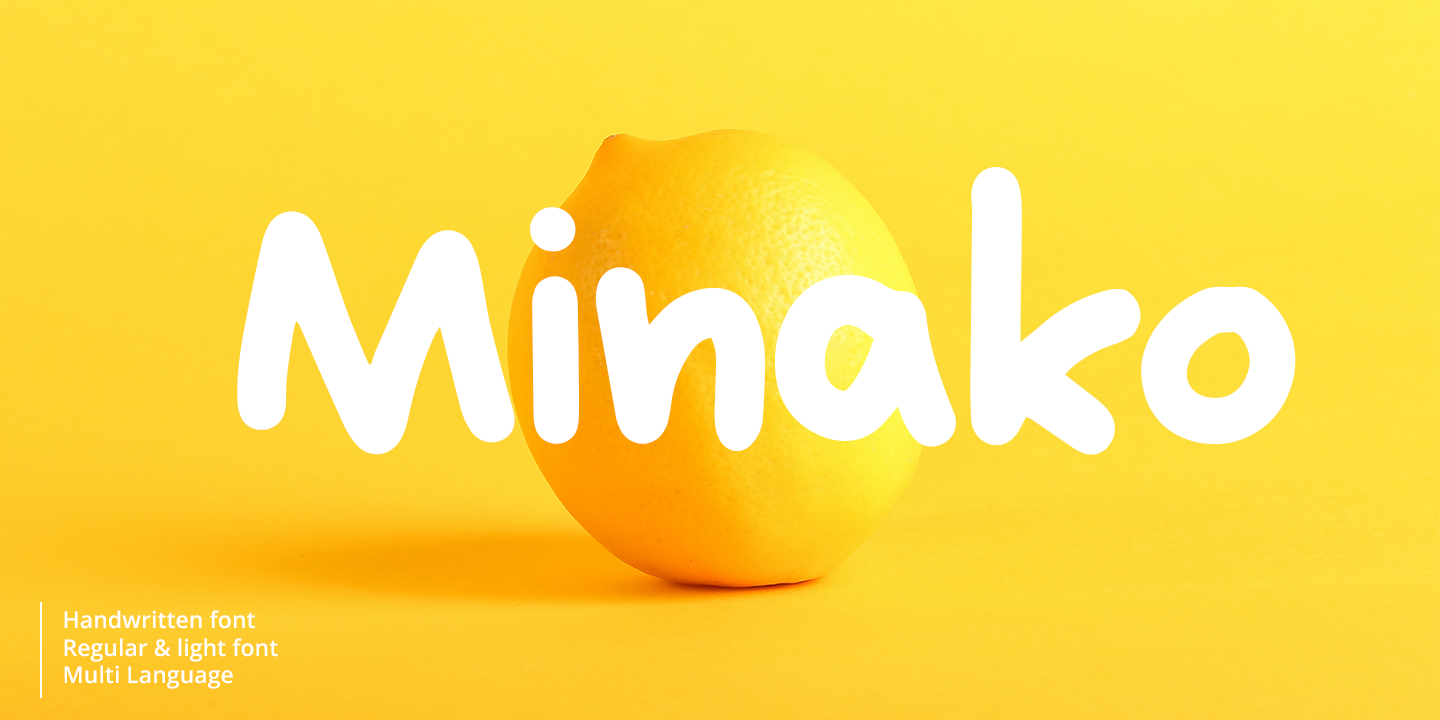
The Minako Font is excellent for Japanese cultural centers, sushi restaurant branding, zen meditation studios, minimalist design agencies, contemporary art galleries, Asian-inspired wellness retreats, modern origami workshops, and sophisticated Japanese-fusion establishments. This elegant typeface works beautifully in applications where Eastern aesthetic principles and contemporary minimalism need to be emphasized, making it perfect for brands that want to communicate serenity, precision, and refined simplicity through authentic cultural design.
What makes Minako Font exciting is its perfect embodiment of Japanese design philosophy and minimalist beauty that captures the essence of wabi-sabi and contemporary elegance. The font's clean letterforms and balanced proportions create an atmosphere of thoughtful simplicity and cultural sophistication, making it ideal for brands that want to convey mindfulness, quality, and authentic respect for Japanese aesthetic traditions. Its serene character design reflects the harmony and precision found in traditional Japanese craftsmanship.
The Minako Font family typically includes light, regular, and medium weights, often featuring subtle Asian-inspired elements, minimalist alternates, and zen-like spacing that enhance its cultural authenticity. Many versions include Japanese design motifs, simple ornamental touches, and specialized characters that provide designers with comprehensive tools for creating respectful culturally-inspired design projects with genuine Eastern aesthetic appeal and contemporary relevance.
For designers working on projects that require cultural sensitivity and minimalist sophistication, Minako Font Free Download provides exceptional Eastern elegance. Its ability to instantly communicate zen-like quality and cultural respect makes it an invaluable choice for wellness brands, cultural institutions, and any project requiring typography that embodies the timeless wisdom of Japanese design, the beauty of mindful simplicity, and the sophisticated elegance of contemporary Eastern aesthetics.